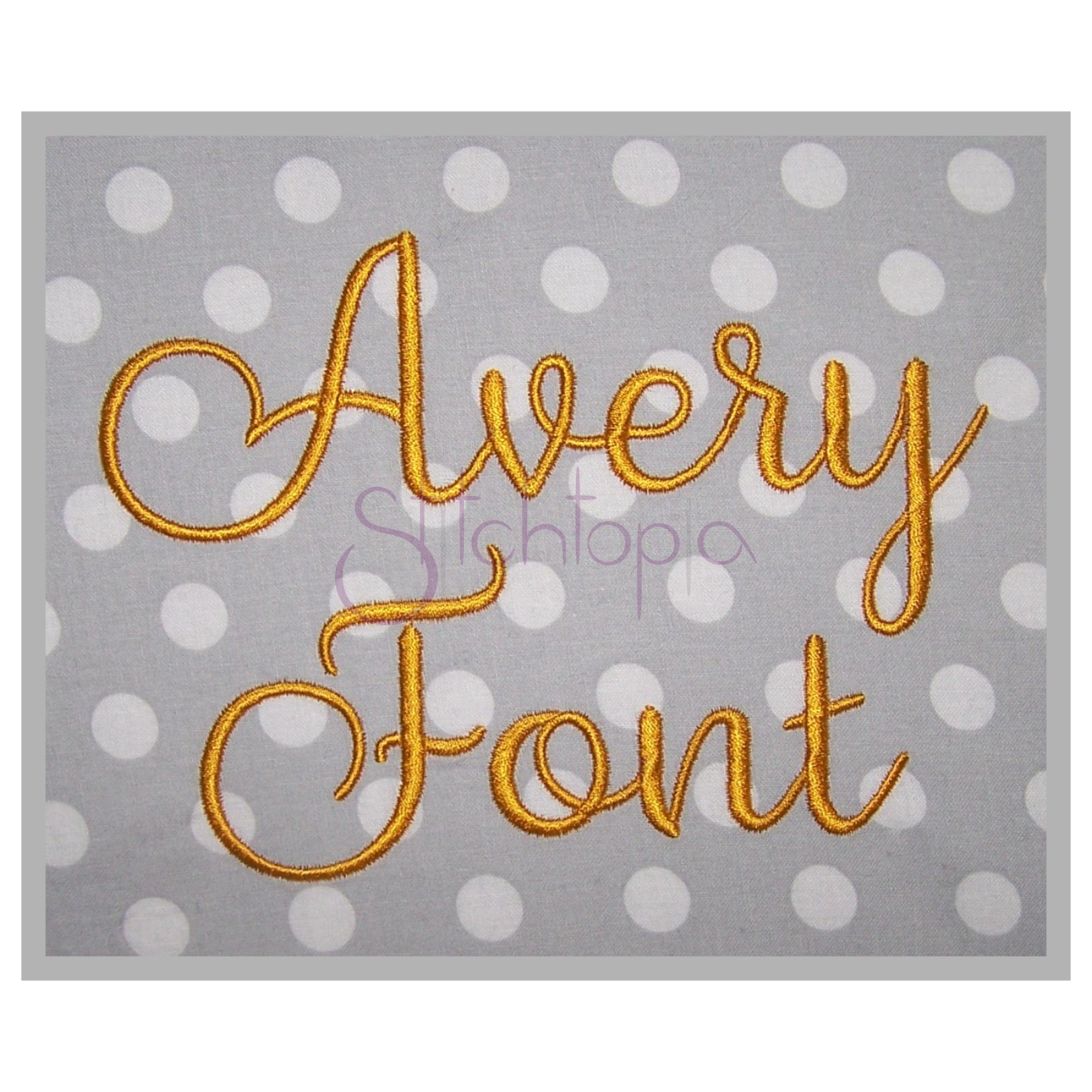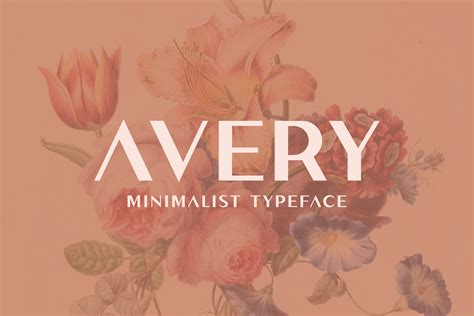
Avery Fonts - Get Ready To Make A Statement In 2023
What Are Avery Fonts?
Avery fonts are a collection of typefaces created and released by the company, Avery Design Systems. These fonts were designed to make a statement and stand out. From bold and unique typefaces to classic and timeless designs, Avery fonts offer a wide variety of options for any project.
Avery fonts are inspired by classic typefaces such as Helvetica, Garamond, and Times New Roman, as well as modern typefaces such as Proxima Nova, Gotham, and Montserrat. This collection of fonts offers a comprehensive selection of styles to choose from and can be used in both print and digital media.
Why Use Avery Fonts?
Avery fonts are designed to be easy to read and look great in any size. They are designed to be highly legible and versatile, making them perfect for any project.
Avery fonts also offer a wide range of weights and styles, which makes them perfect for any project. Whether you need a bold, eye-catching font for a logo design or a more subdued and classic font for a website, Avery fonts have you covered.
How to Use Avery Fonts
Avery fonts are designed to be used in both print and digital media. They can be used in logos, brochures, business cards, posters, websites, and much more.
The best way to use Avery fonts is to pair them with another font. This will help to create a unique look and feel for your project. When pairing fonts, try to choose fonts with similar weights and styles, as this will create a cohesive look.
Avery fonts are a great choice for any project in 2023. They offer a wide range of styles, weights, and designs, and are perfect for both print and digital media. Whether you need a bold, eye-catching font or a more subdued, classic font, Avery fonts have you covered.
So if you’re looking to make a statement in 2023, Avery fonts are the perfect choice. With their versatile styles, weights, and designs, Avery fonts will help you create a unique and memorable look for any project.